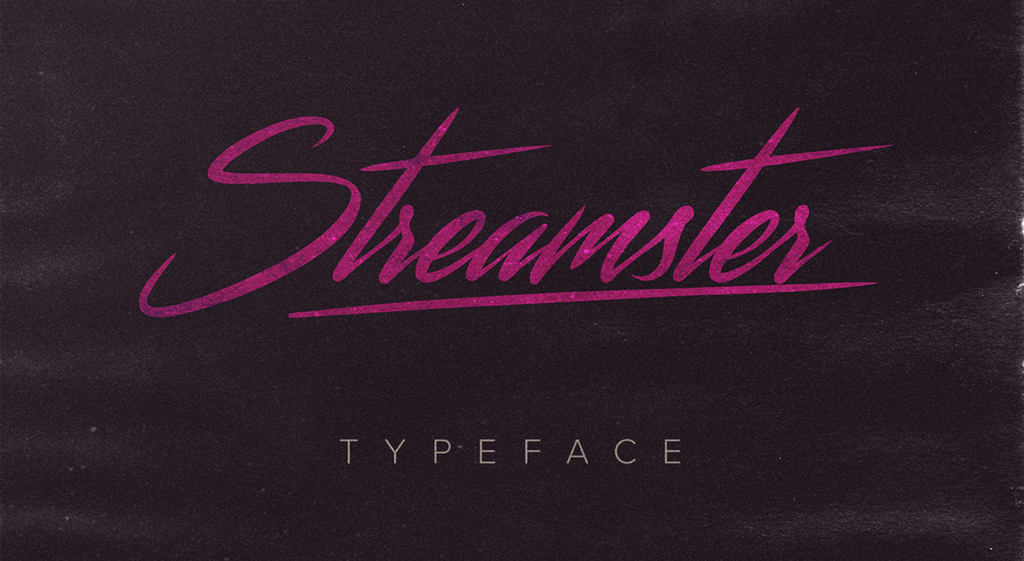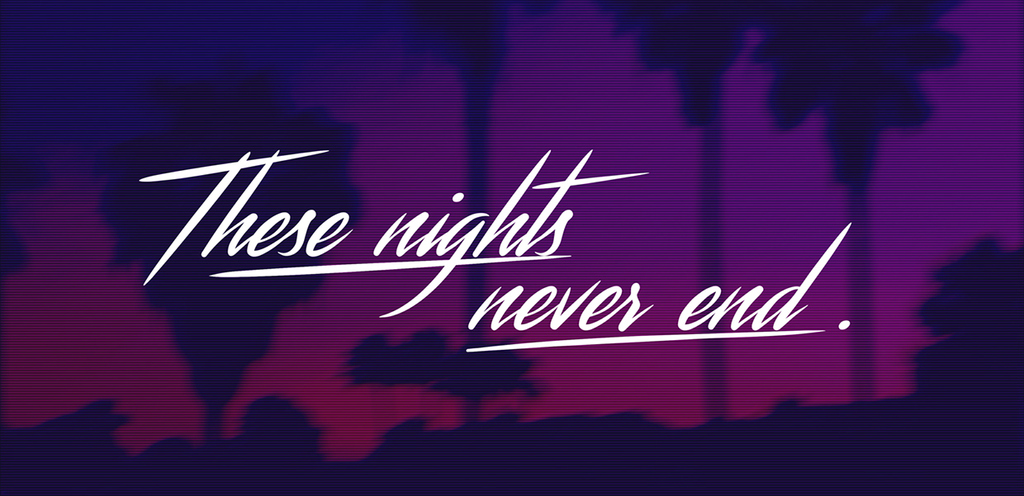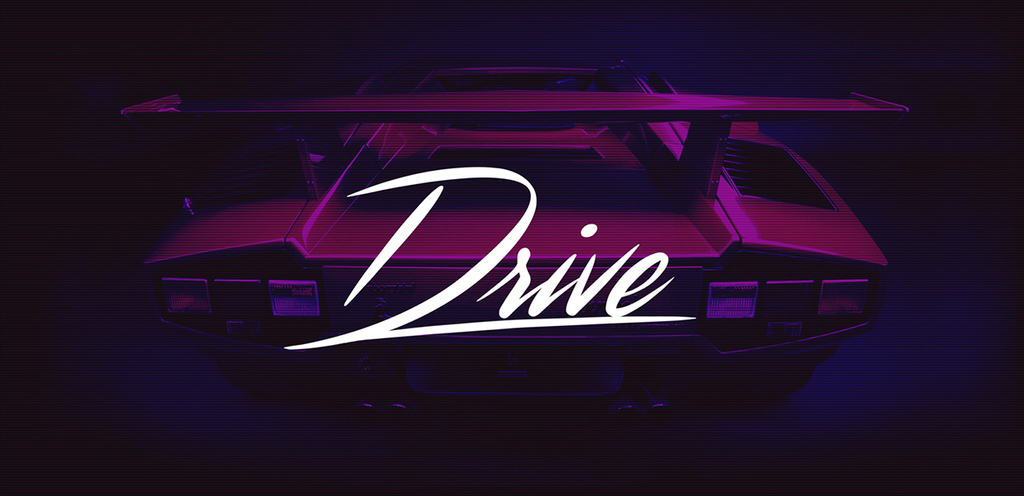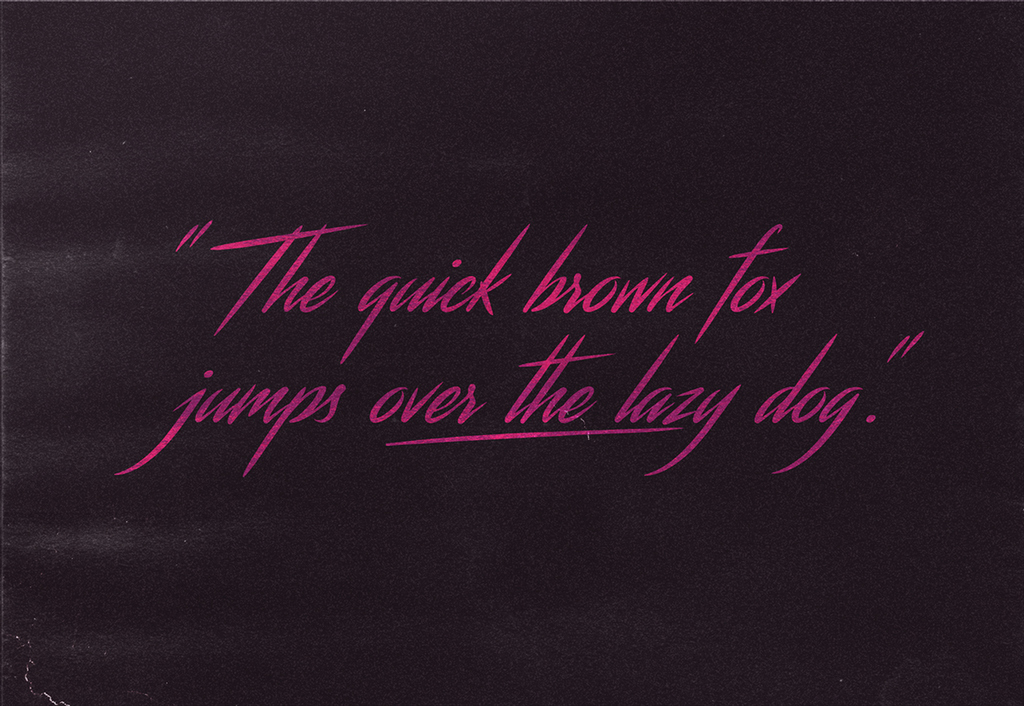
Streamster by Youssef Habchi
If you’re in need of an ’80s-inspired, retro style typeface, look no further than Streamster. Created by designer Youssef Habchi, this cool font is great for creating eye-catching posters, headlines and much more.